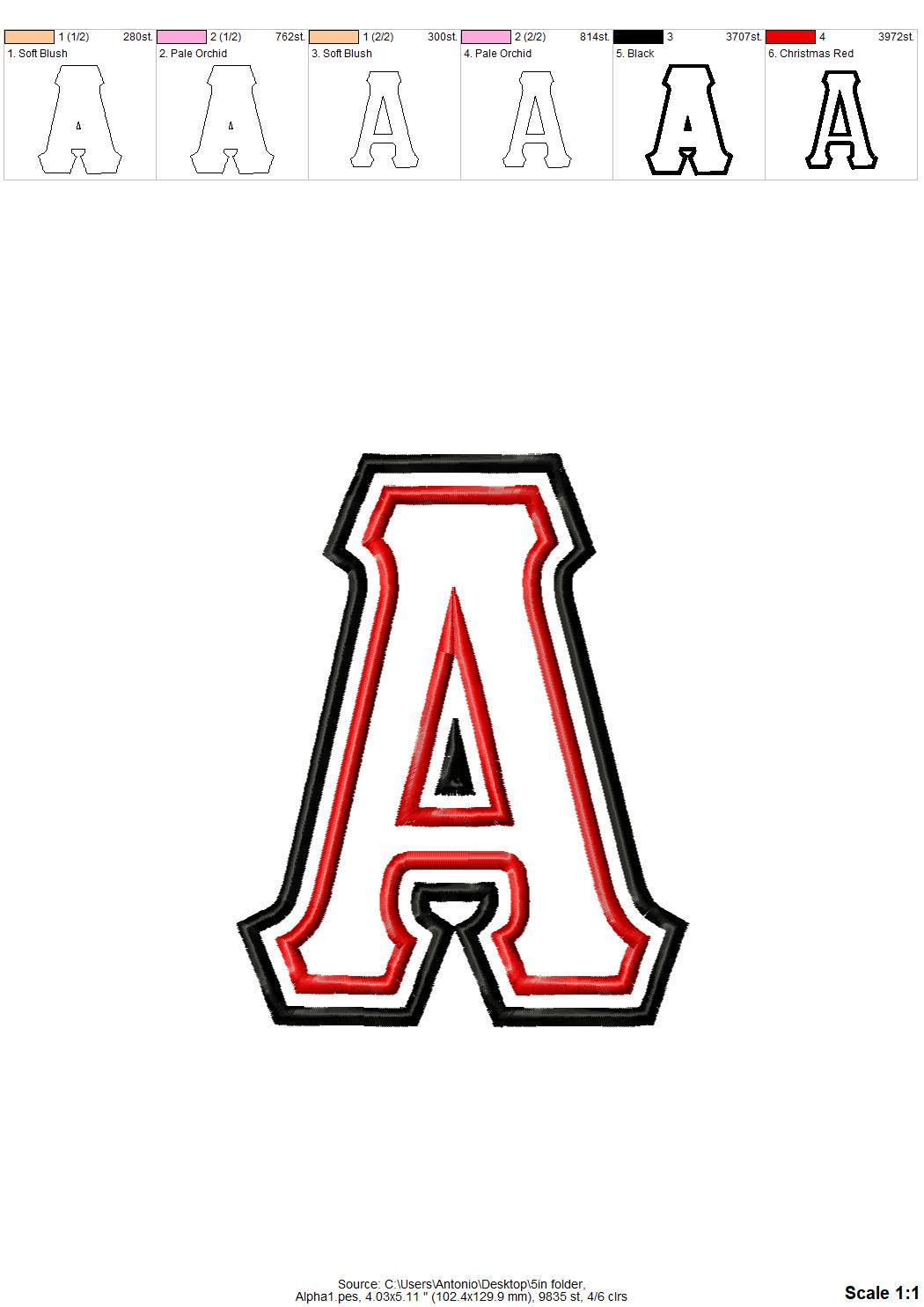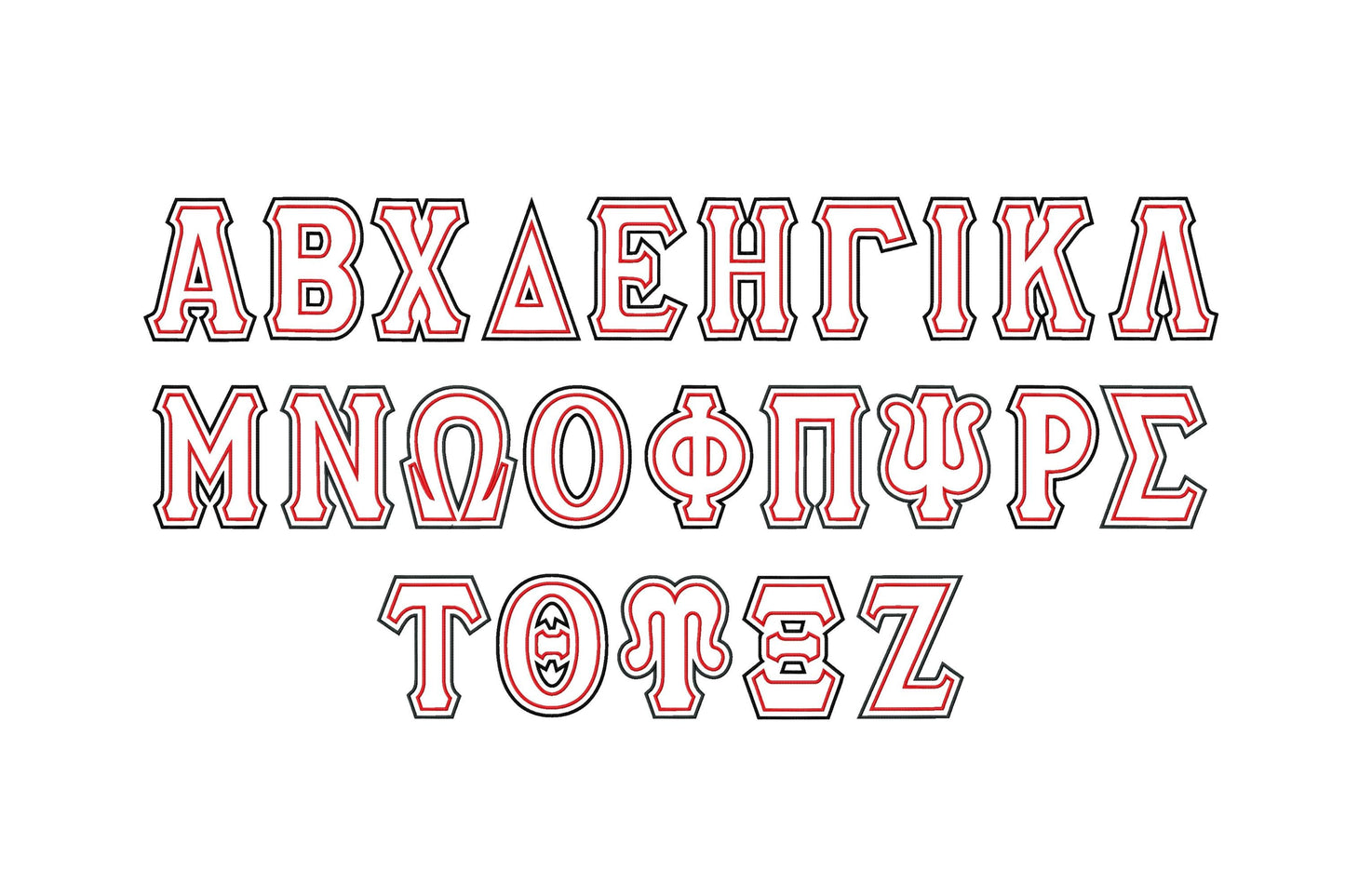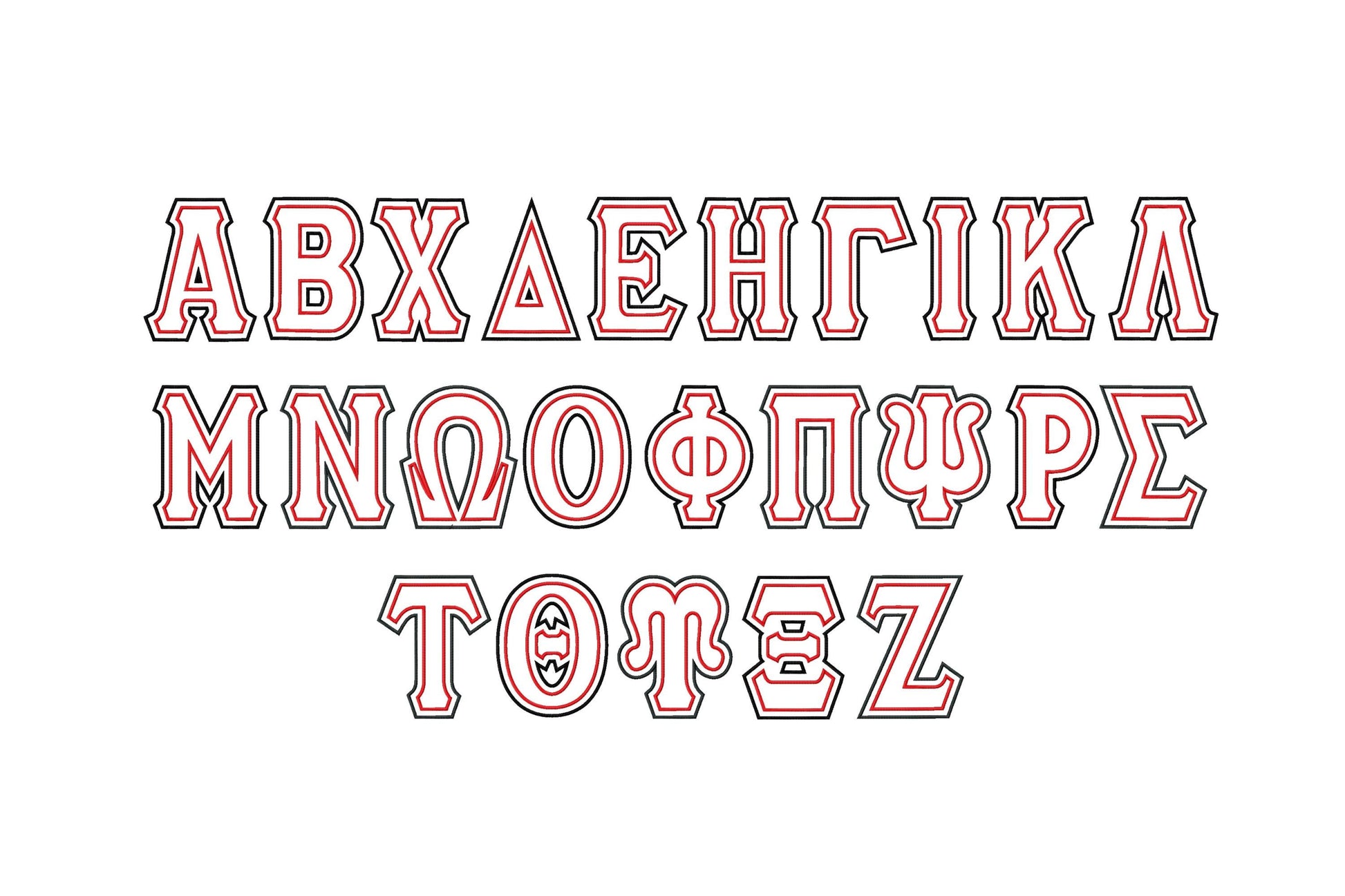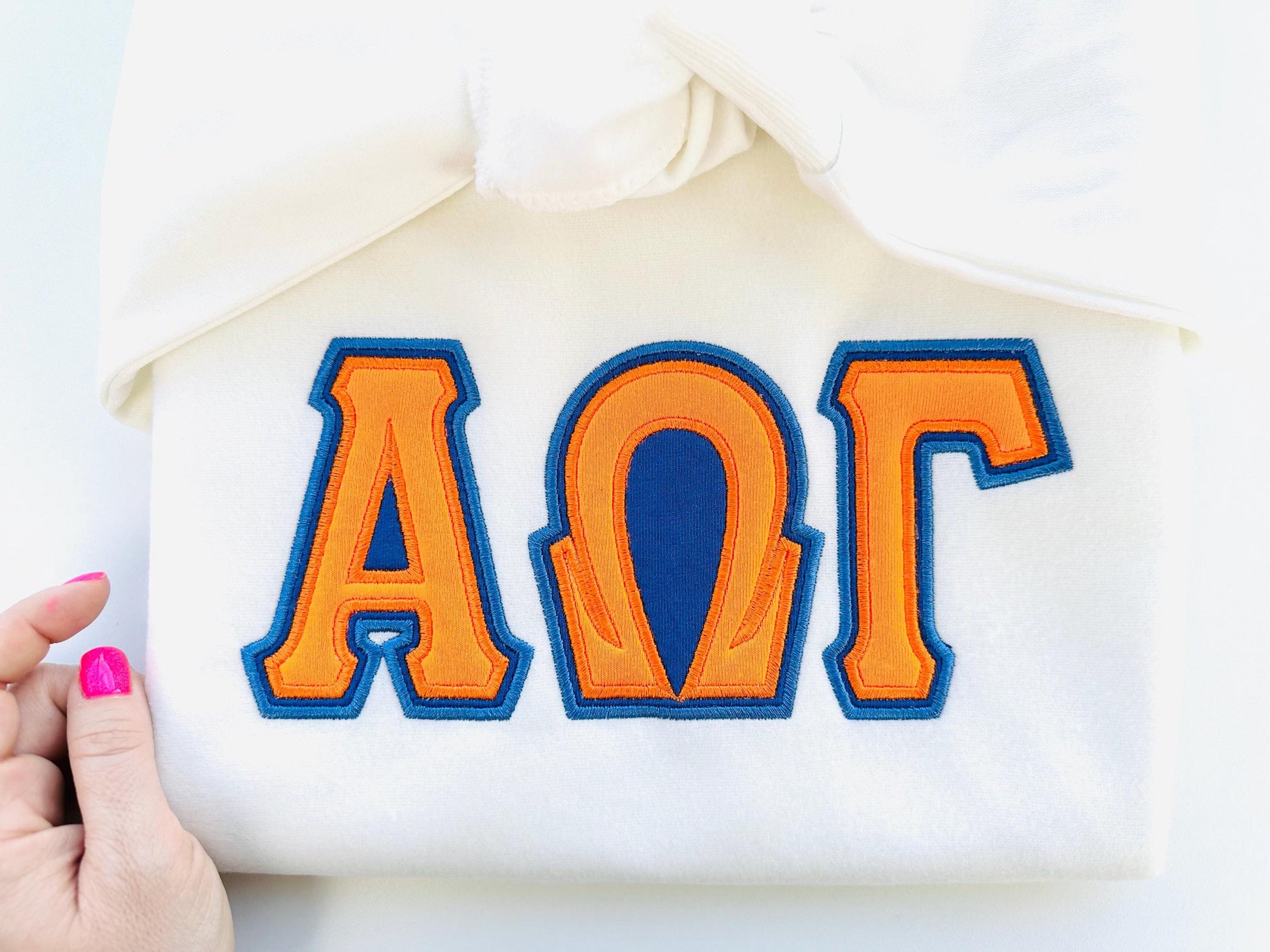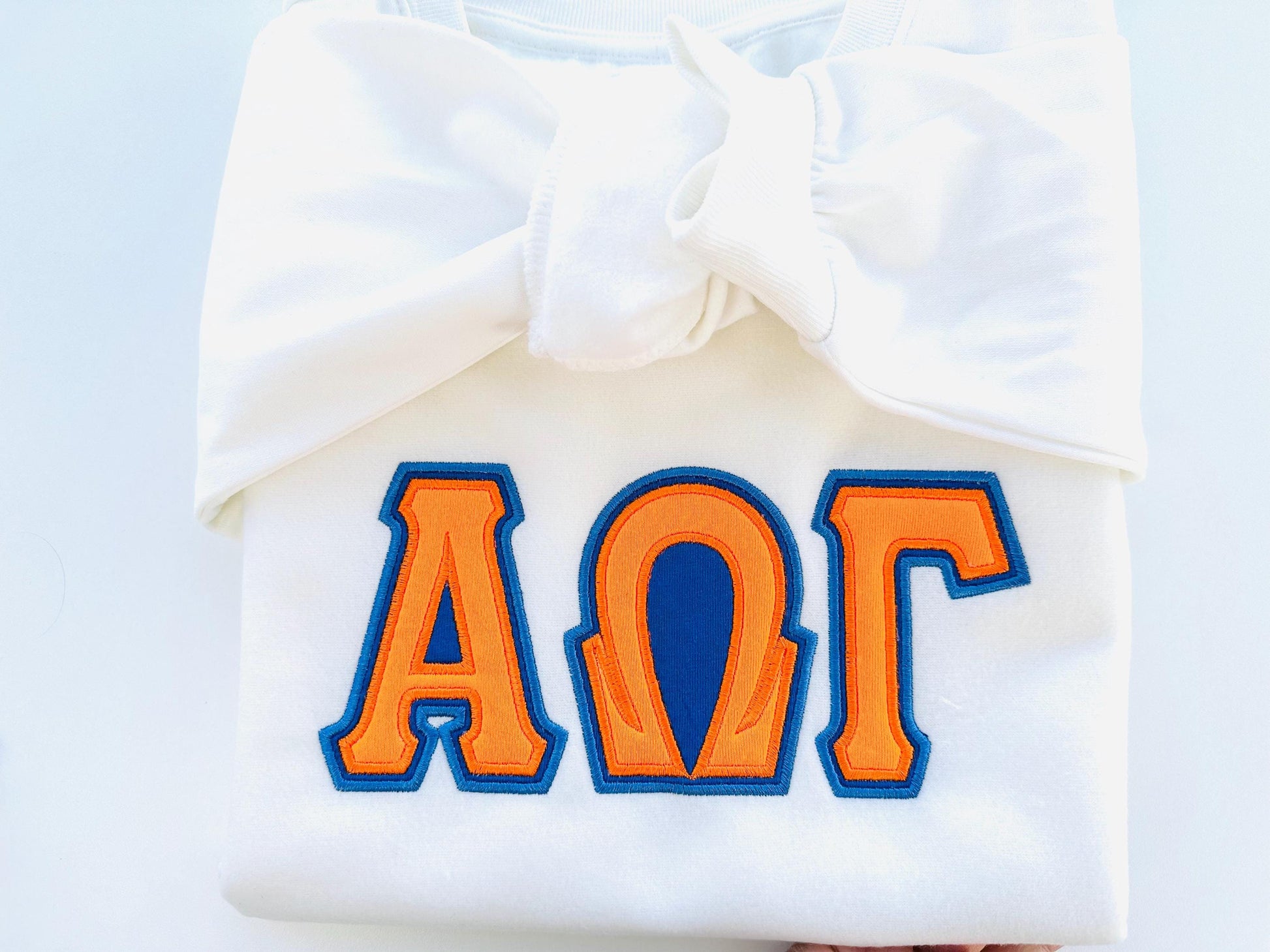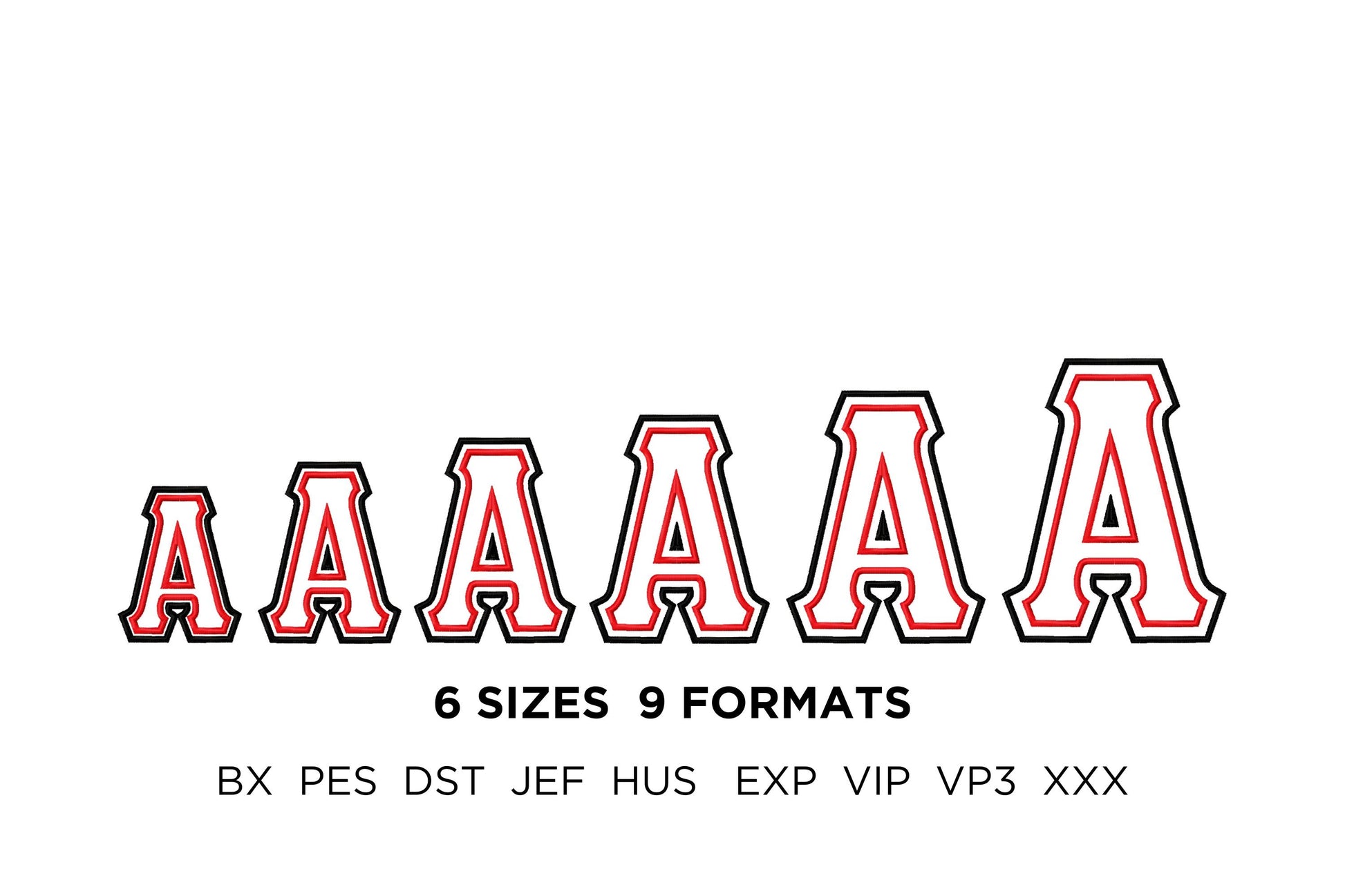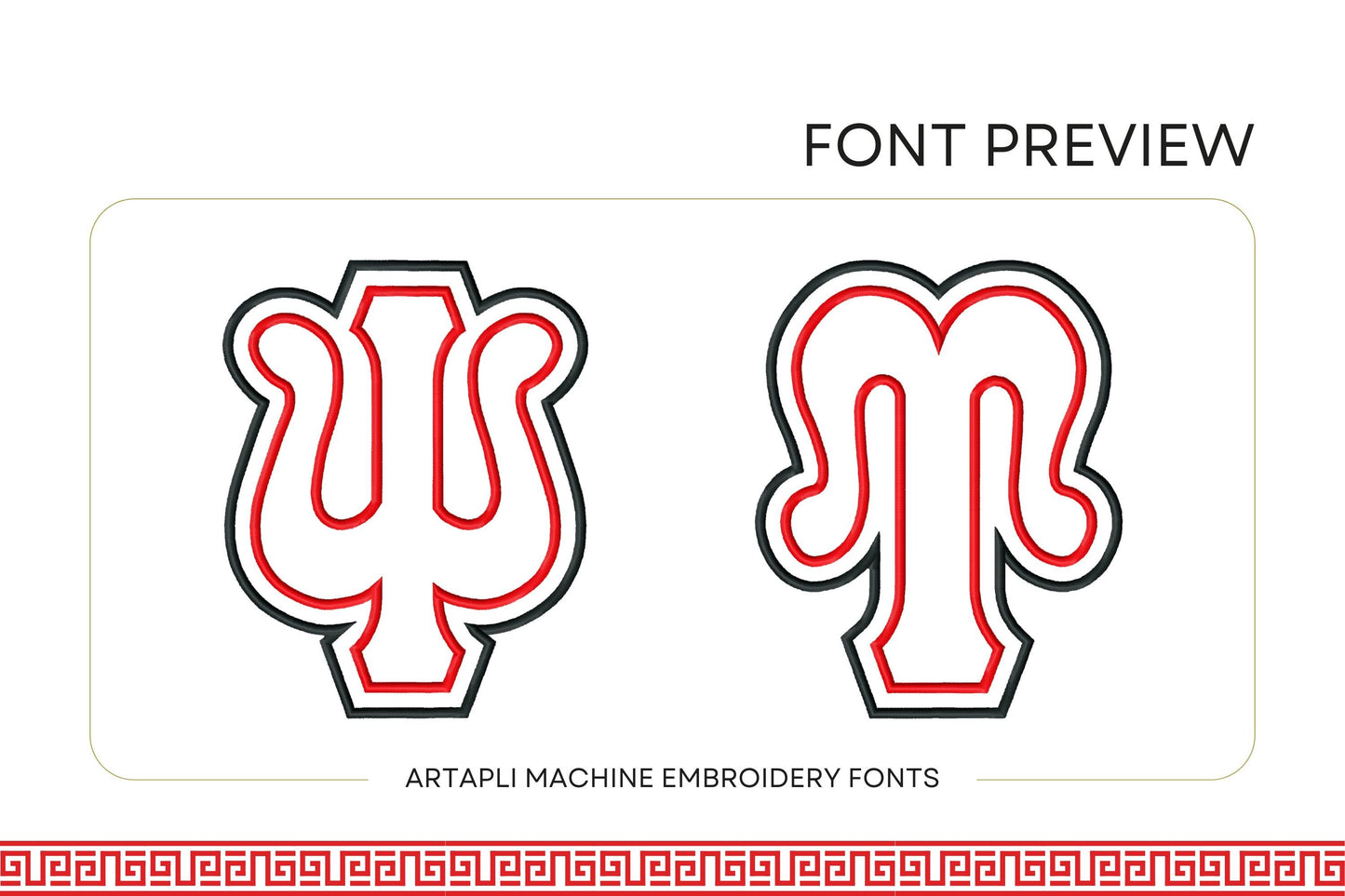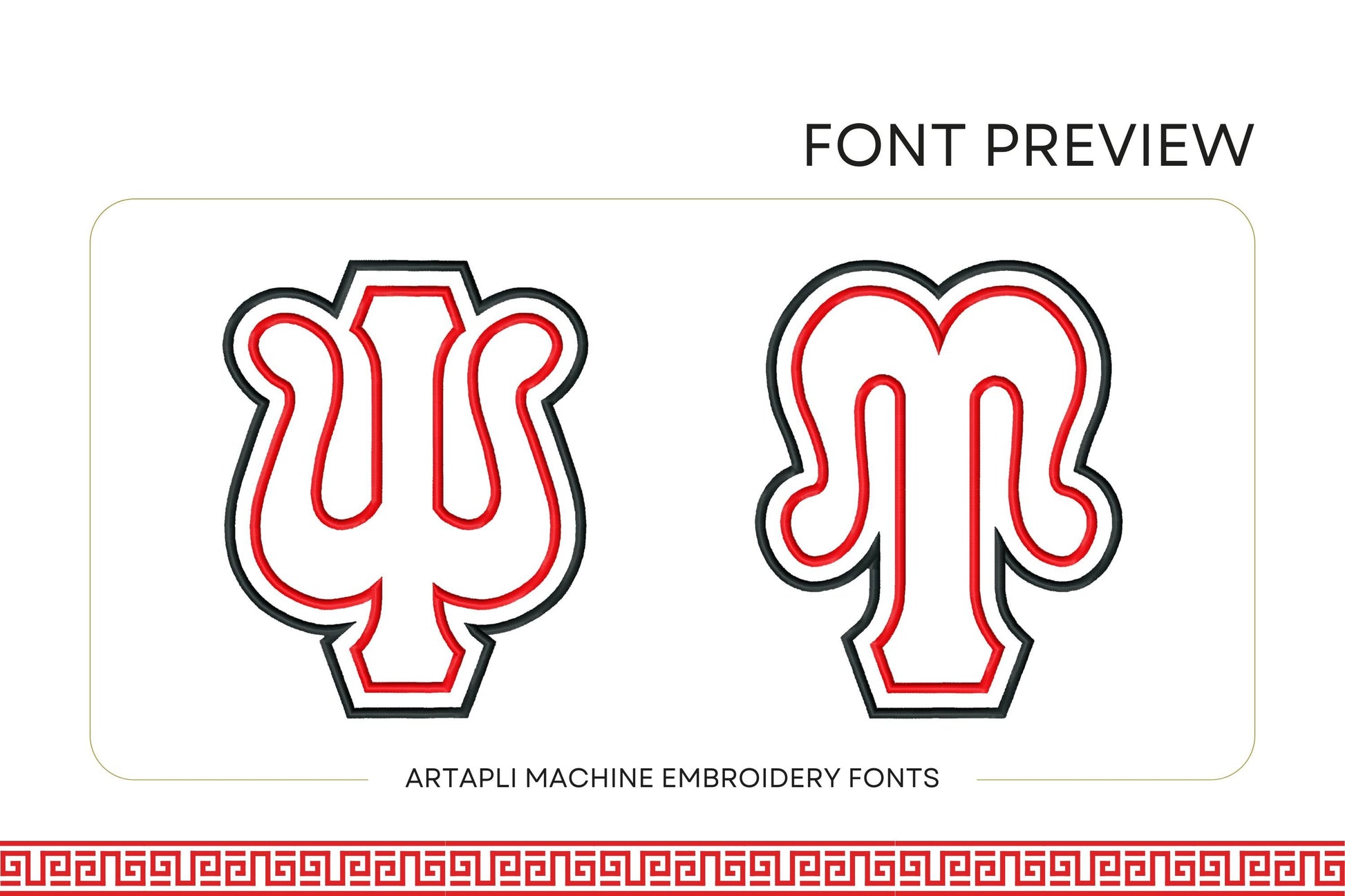
Or click to open the linkTall Greek letters in two applique layers with a double outline. Bold for sorority and fraternity sweatshirts, jackets and blankets.
All 24 Greek letters in six sizes: 4, 4.5, 5, 5.7, 6.3 and 7 inches. Double-layer applique.